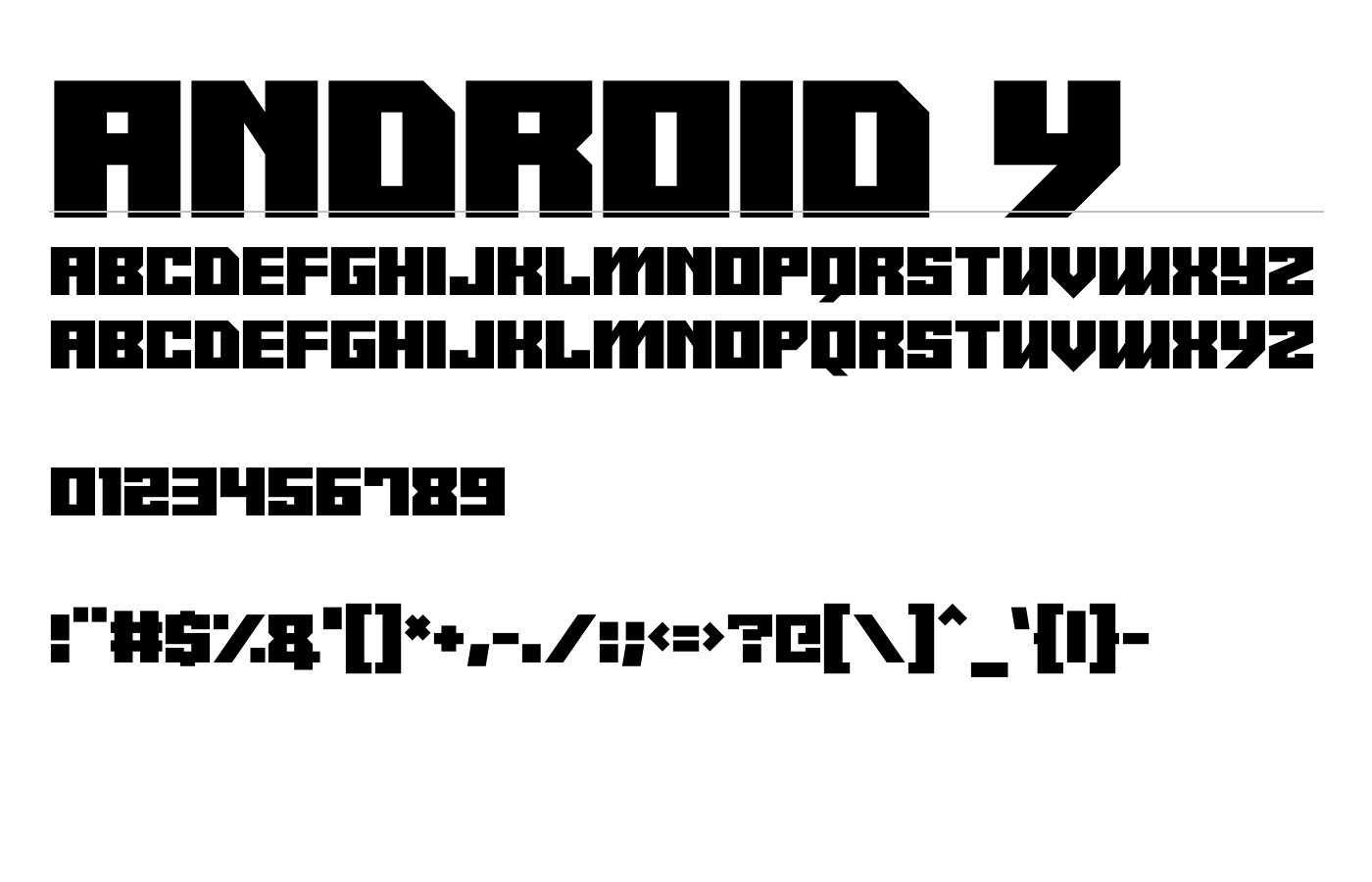
Android y Font is a bold, geometric sans-serif typeface with a strong, blocky appearance and sharp, angular edges. Its heavy weight and condensed width make it highly impactful and modern, perfect for striking headlines or logos that need a tech-inspired, futuristic vibe. This font works well in branding, posters, and digital media where a bold statement is essential.
Android y Font